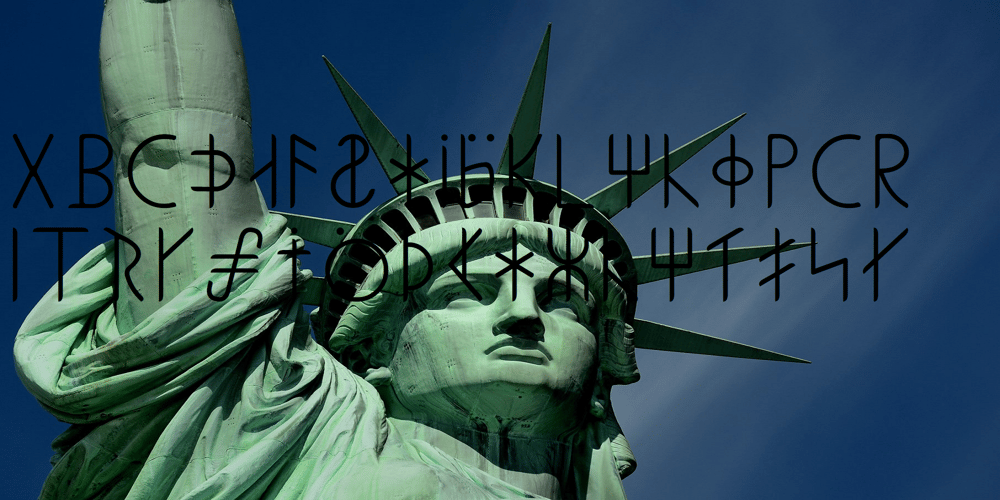
Ongunkan Liljegren Runic Font Family was designed by Osman Nuri ALKAN and published by Runic World Tamgacı. Ongunkan Liljegren Runic contains 1 styles and family package options. It is the 3rd inscription font I shared with Liljegren Runic, one of the inscriptions in America. I couldn’t find much information about it.